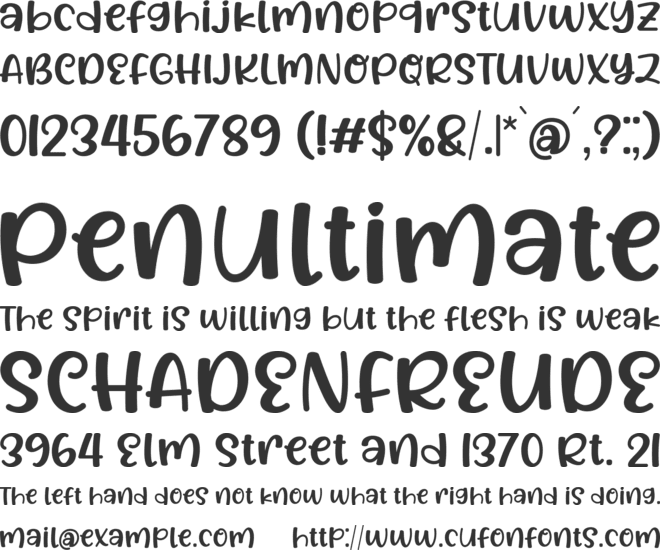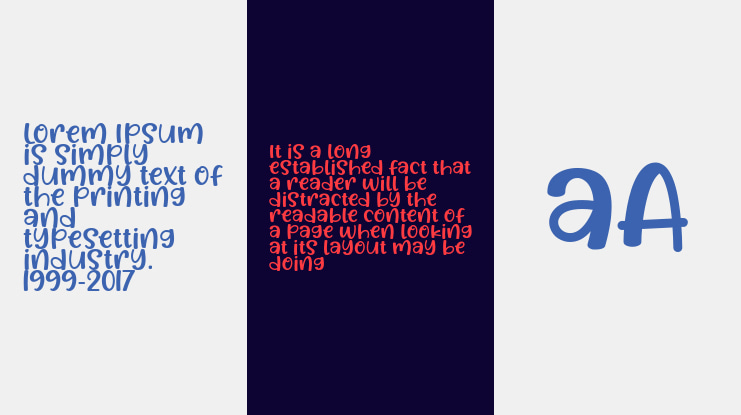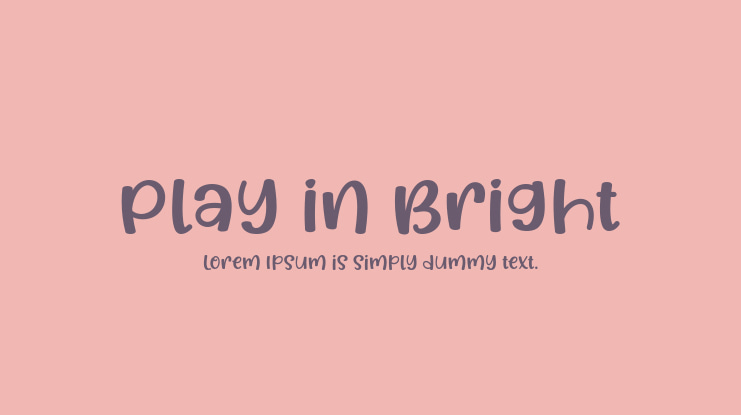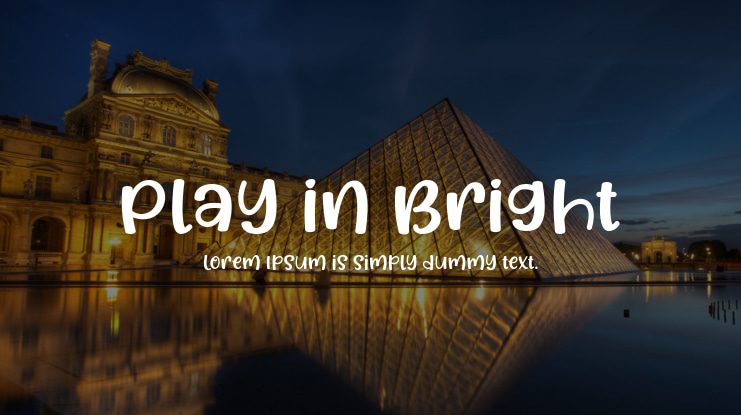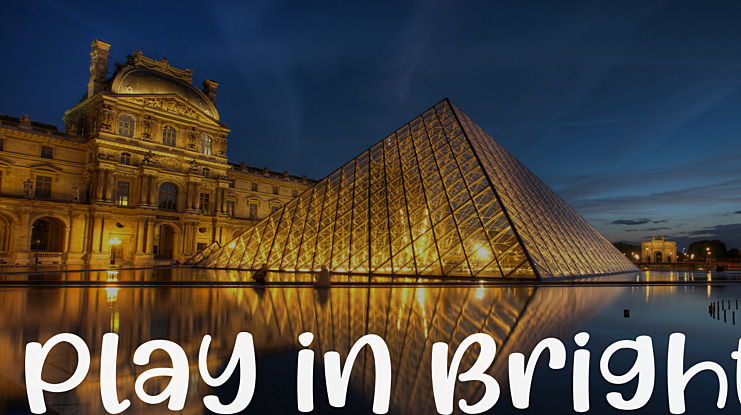
Play in Bright Font
Playful and whimsical appearance with unique flourishes that give a distinct and quirky personality. Expressive type of typography that can add a touch of whimsy and charm to any design project.